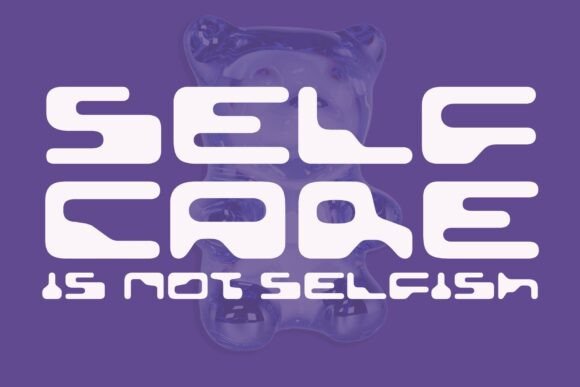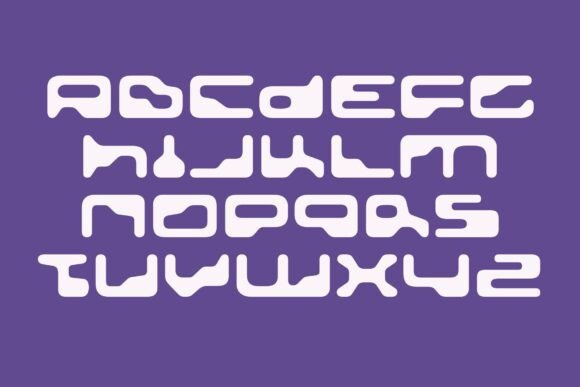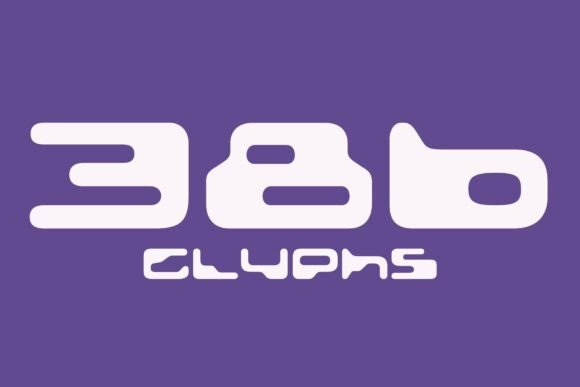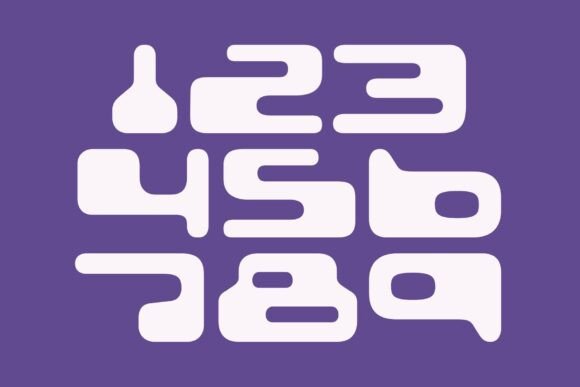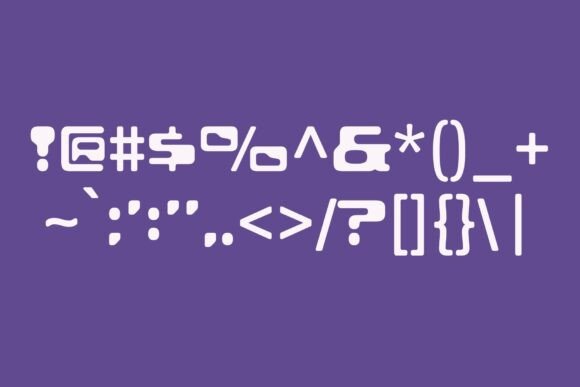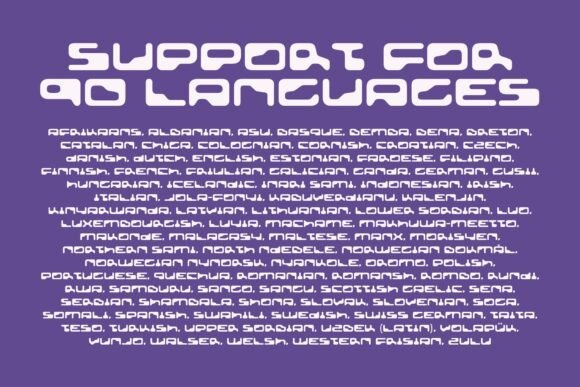
Introduction to Cyberwave 2000 Font Font
Fonts play a crucial role in design, and the Cyberwave 2000 Font font is a typeface that brings both character and versatility to any project. Whether you’re working on a branding project, a website, or a print design, the Cyberwave 2000 Font font offers a unique style that can elevate your work.
Step into a digital daydream with Cyberwave 2000, a bold Y2K-inspired typeface that captures the glitchcore glamour, chrome-coated aesthetics, and futuristic optimism of the early internet era.
This font oozes turn-of-the-millennium attitude with sleek curves, synthetic edges, and a distinctly cyber-pop personality Whether youβre designing vaporwave posters, album covers, event flyers, techwear branding, or nostalgic social content, Cyberwave 2000 delivers maximum retro impact with zero hesitation.
Key Features of Cyberwave 2000 Font Font
Why Choose Cyberwave 2000 Font Font?
The Cyberwave 2000 Font font is more than just a typeface β it’s a design tool that helps you communicate your message with style and clarity. Its unique character set and versatile design make it suitable for a wide range of applications, from elegant invitations to bold headlines.
With its carefully crafted letterforms and balanced proportions, the Cyberwave 2000 Font font ensures readability and visual appeal across all mediums.
What makes Cyberwave 2000 Font font special?
The Cyberwave 2000 Font font stands out with its unique design, exceptional readability, and versatility across various design applications.